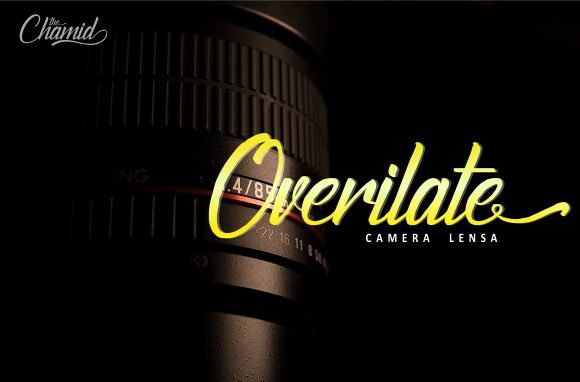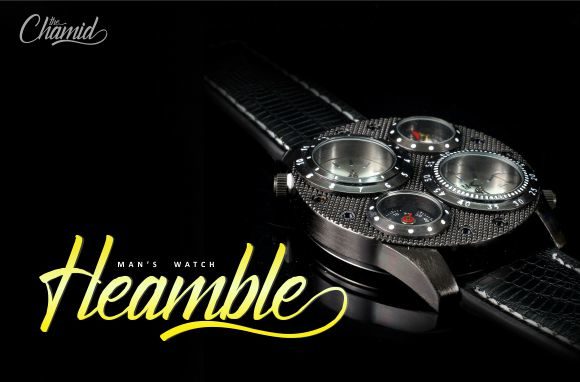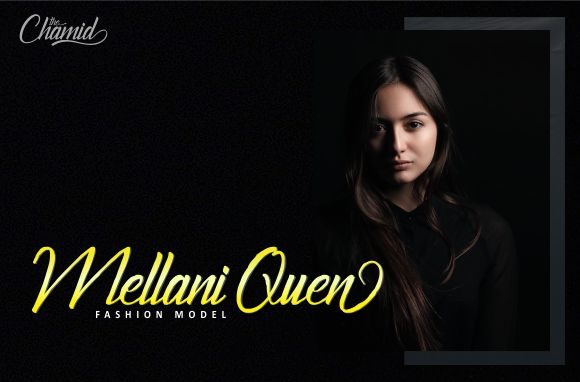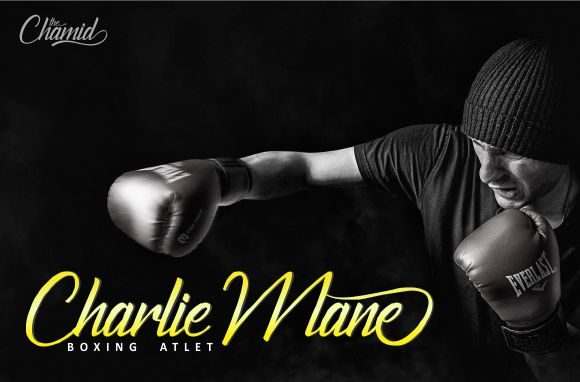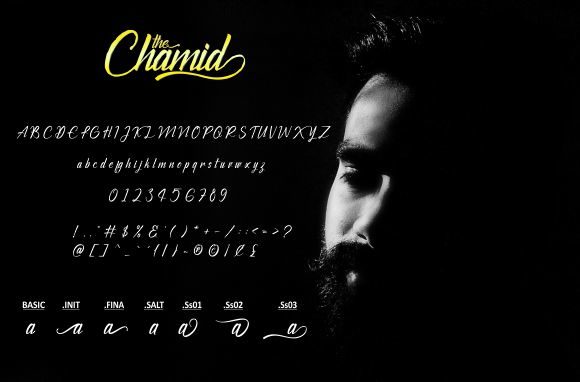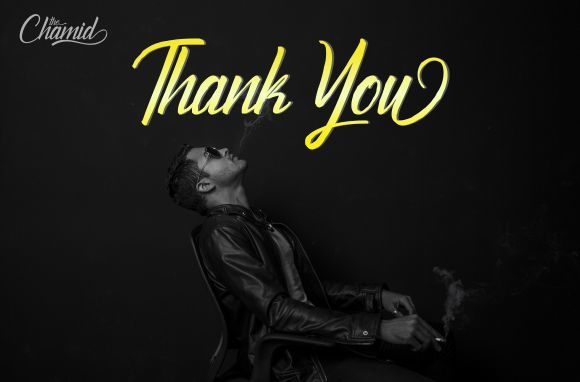
The Chamid Font
About The Chamid Font
The Chamid is a modern handwritten script. It’s elegant style can be used for invitations, covers, business cards, magazines, logos, and much more!